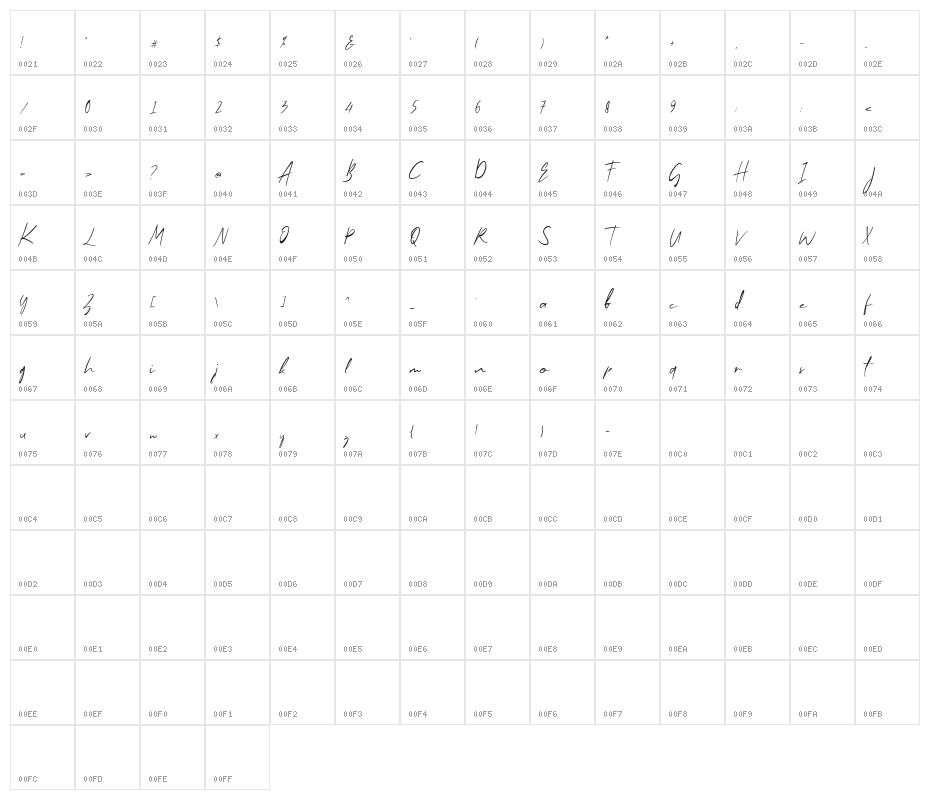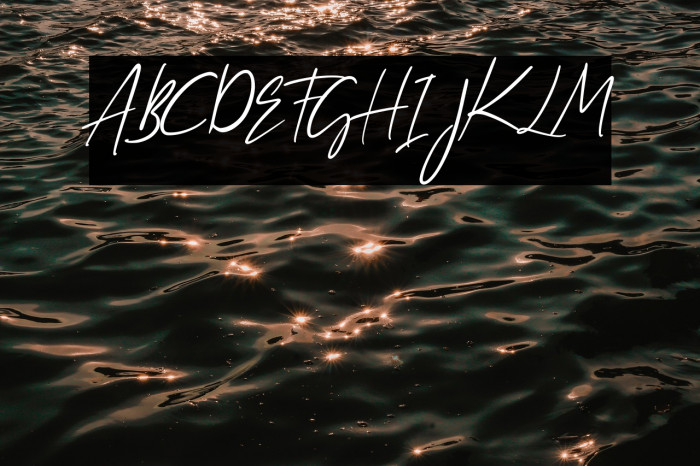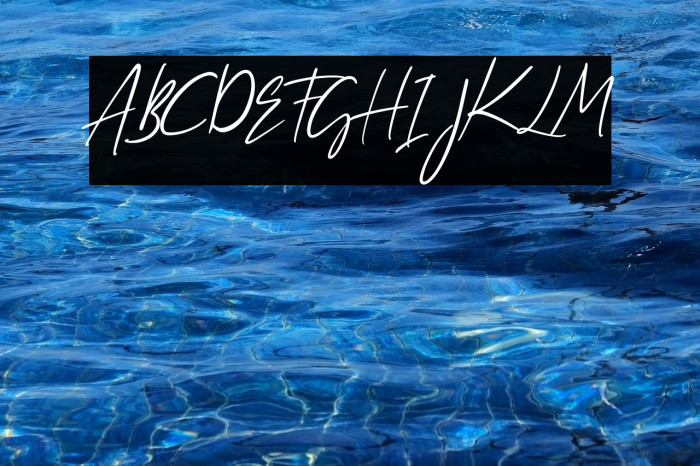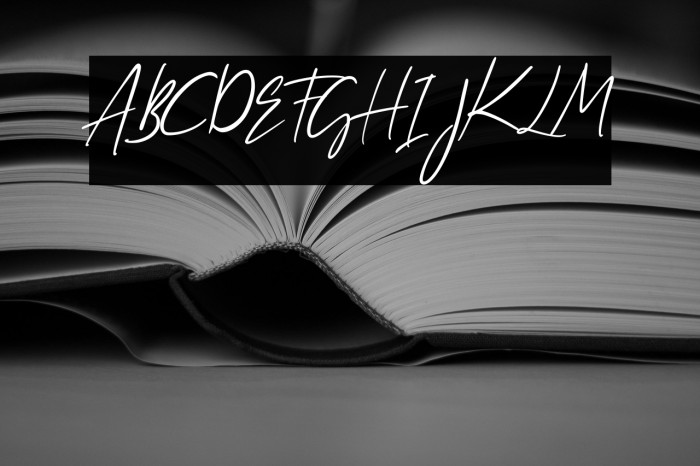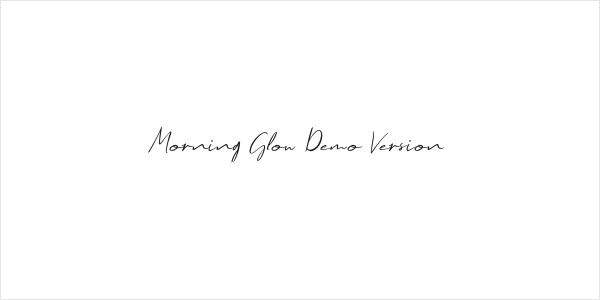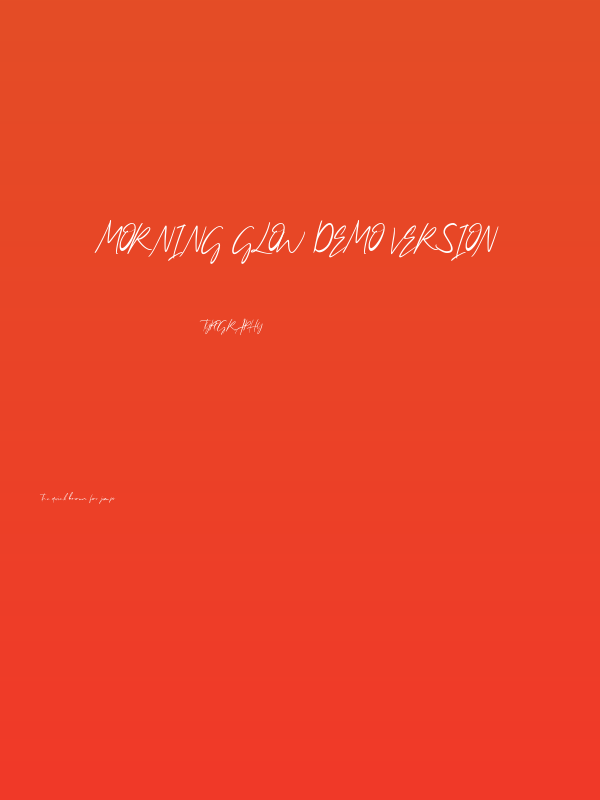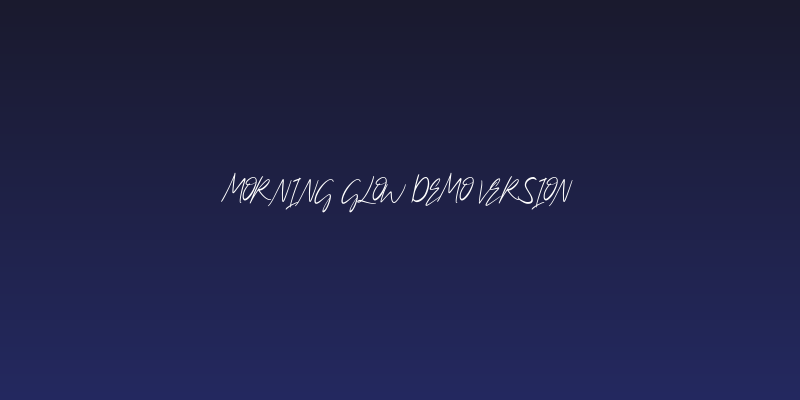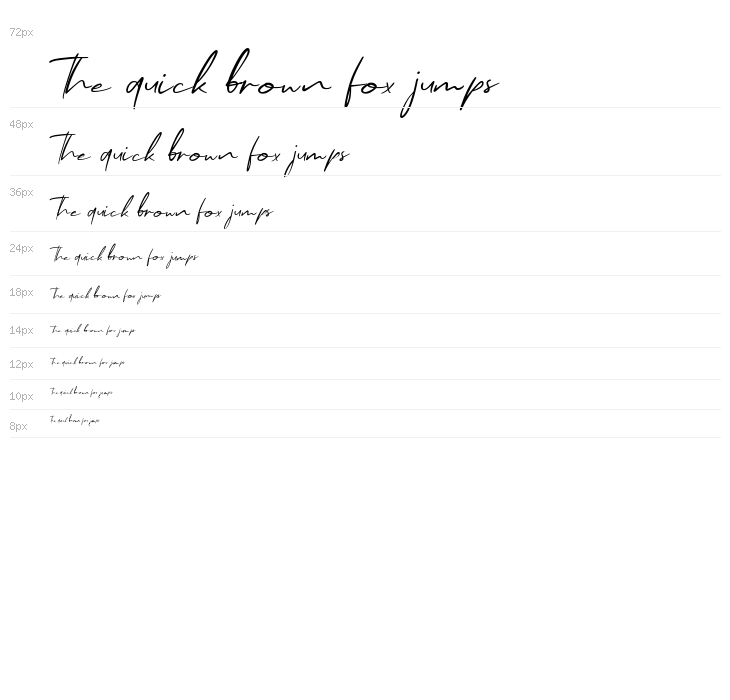
Morning Glow Demo Version Font
Morning Glow Demo Version Description
This font exudes a casual yet elegant handwritten style, characterized by its fluid and flowing letterforms. The strokes are smooth and slightly irregular, giving it a personal and organic feel. The uppercase letters are tall and slender, while the lowercase letters maintain a consistent height, adding to the font's readability. The numbers and special characters are crafted with the same attention to detail, ensuring a cohesive look across all elements. This font is perfect for projects that require a touch of sophistication and personality, such as invitations, greeting cards, or branding materials.